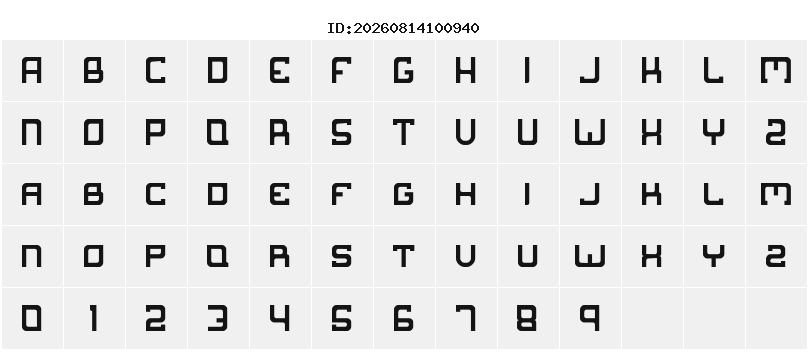
Suborban Preview
• Font Name: Suborban
• Full Font Name: Suborban
About Suborban.ttf
Suborban.ttf is a modern, elegant sans-serif font designed for ultimate readability and visual harmony. Perfect for branding, headlines, web design, and print materials.